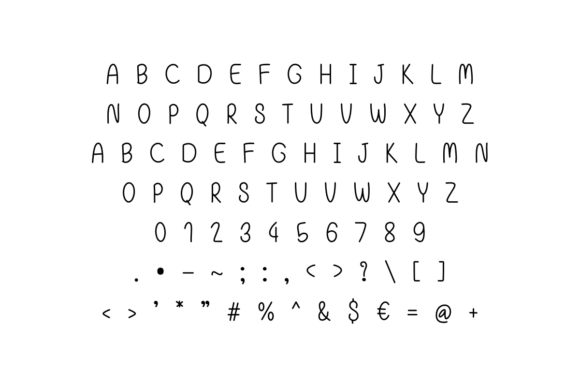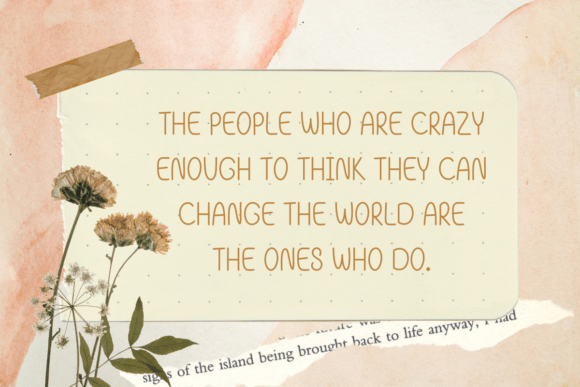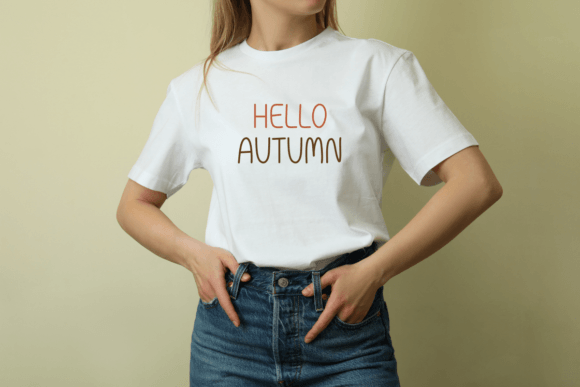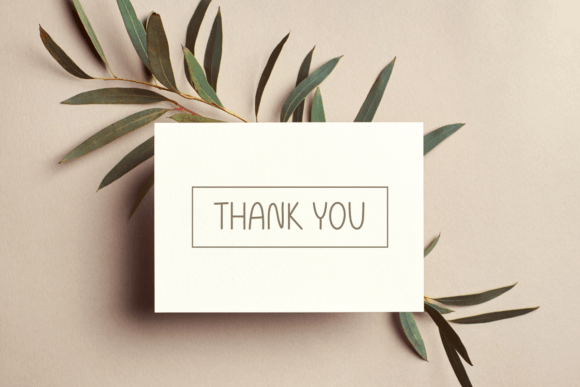
Welcome the Cozy Season with Hello Autumn Font
As the leaves begin to change and the air grows crisper, designers and crafters alike start to think about how to capture the essence of autumn in their work. One of the most effective ways to do this is with a beautiful, seasonal font that evokes the warmth and coziness of the season. That’s where Hello Autumn Font comes in – a sweet and friendly handwritten font that’s perfect for a wide range of designs.
The Perfect Font for Autumn-Inspired Designs
Hello Autumn Font is a stunning example of a handwritten font that can add a personal touch to any design. Its natural and unique style makes it incredibly fitting to a large pool of designs, from seasonal greeting cards and invitations to blog posts and social media graphics. Whether you’re a designer looking to create something special for your clients or a crafter wanting to add a personal touch to your handmade products, Hello Autumn Font is the perfect choice.
What Makes Hello Autumn Font So Special?
So, what sets Hello Autumn Font apart from other fonts? Here are just a few things that make it a standout:
• Handwritten charm: Hello Autumn Font has a beautiful, handwritten quality that gives it a warm and inviting feel. It’s the perfect way to add a personal touch to your designs.
• Unique style: This font has a unique style that’s all its own. It’s not too formal or too casual – it strikes the perfect balance between the two.
• Versatility: Hello Autumn Font is incredibly versatile. It can be used for a wide range of designs, from seasonal decorations to digital products.
How to Use Hello Autumn Font in Your Designs
Now that you know a little bit more about Hello Autumn Font, let’s talk about how to use it in your designs. Here are a few ideas to get you started:
• Seasonal greeting cards: Create beautiful, one-of-a-kind greeting cards for your friends and family using Hello Autumn Font.
• Autumn-themed invitations: Whether you’re hosting a harvest party or a Thanksgiving dinner, Hello Autumn Font is the perfect choice for your invitations.
• Blog posts and social media graphics: Add a touch of autumn charm to your blog posts and social media graphics with Hello Autumn Font.
• Handmade products: If you’re a crafter, you can use Hello Autumn Font to add a personal touch to your handmade products, such as knitted items, jewelry, or ceramics.
Tips for Getting the Most Out of Hello Autumn Font
Here are a few tips for getting the most out of Hello Autumn Font:
• Experiment with different colors: Hello Autumn Font looks great in a variety of colors, from rich autumn hues like orange and red to more muted tones like beige and cream.
• Pair it with other fonts: Don’t be afraid to pair Hello Autumn Font with other fonts to create a unique look. It pairs particularly well with sans-serif fonts.
• Use it in combination with images: Hello Autumn Font looks great in combination with images, especially those that feature autumn scenery or motifs.
Hello Autumn Font is a beautiful, sweet, and friendly handwritten font that’s perfect for a wide range of designs. Its natural and unique style makes it incredibly fitting to a large pool of designs, and its ease of use makes it a great choice for designers and crafters of all skill levels. So why wait? Download Hello Autumn Font today and start creating your own autumn-inspired designs!